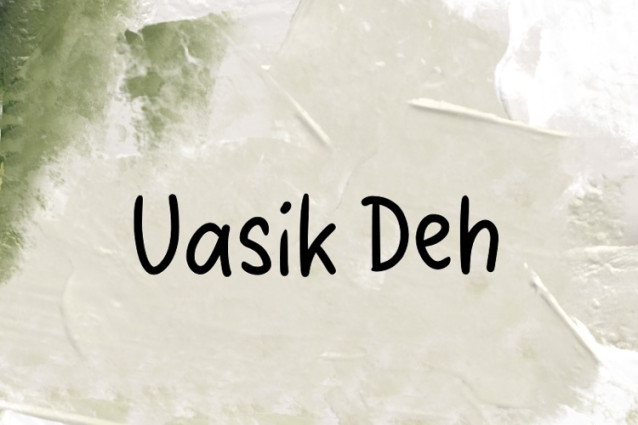
Uasik Deh Font
Uasik Deh Font is a simple and friendly handwritten font. Its natural and unique style makes it incredibly fitting to a large pool of designs. The only limit is your imagination!